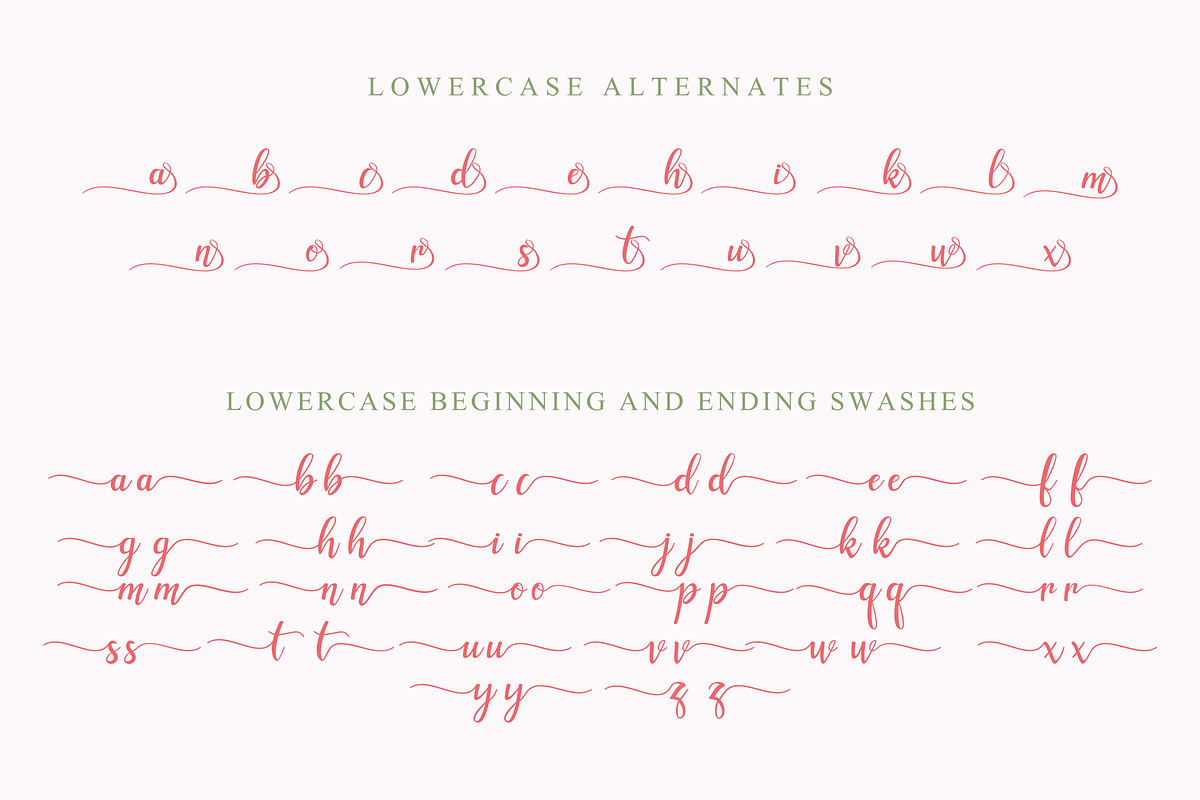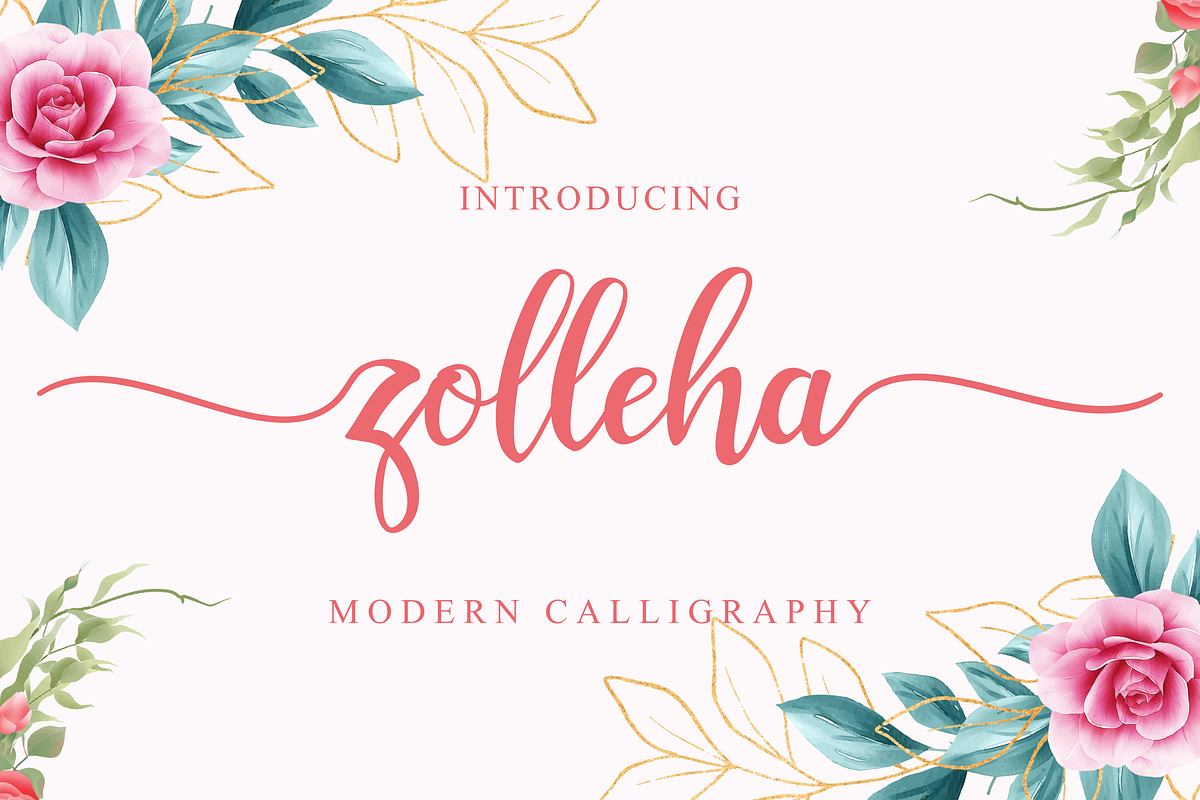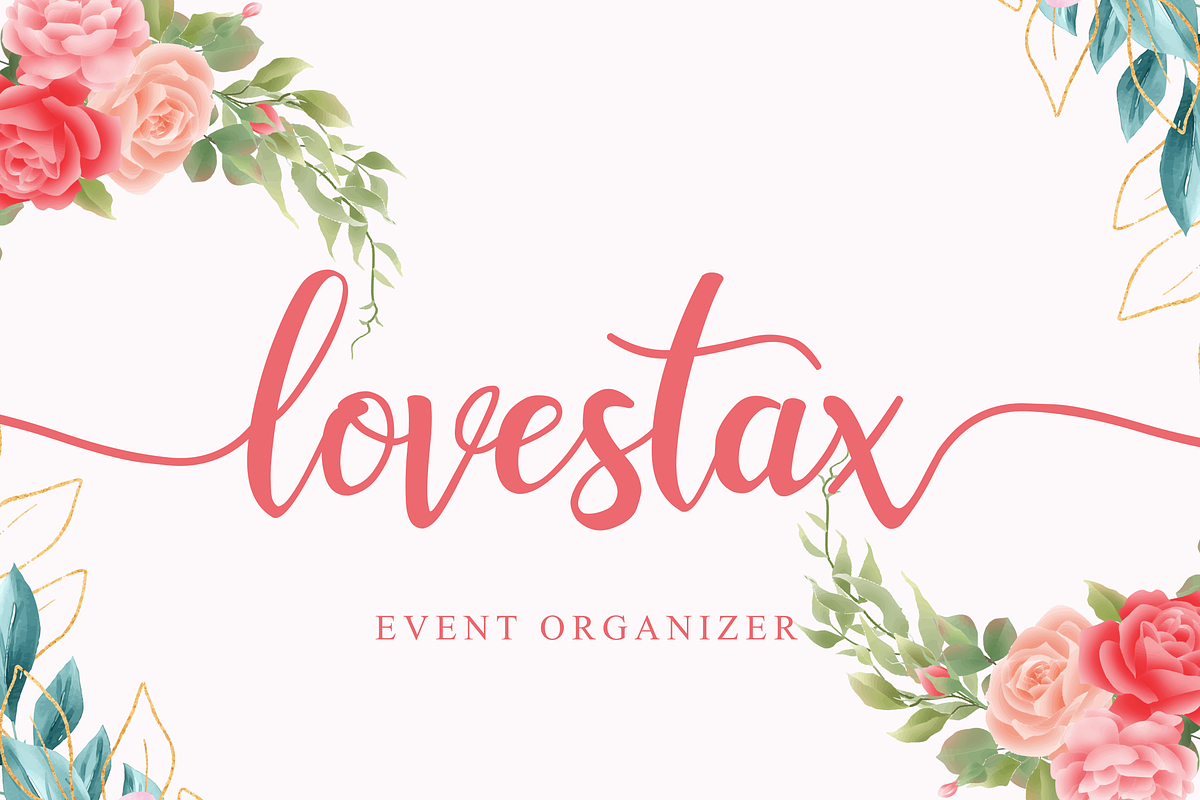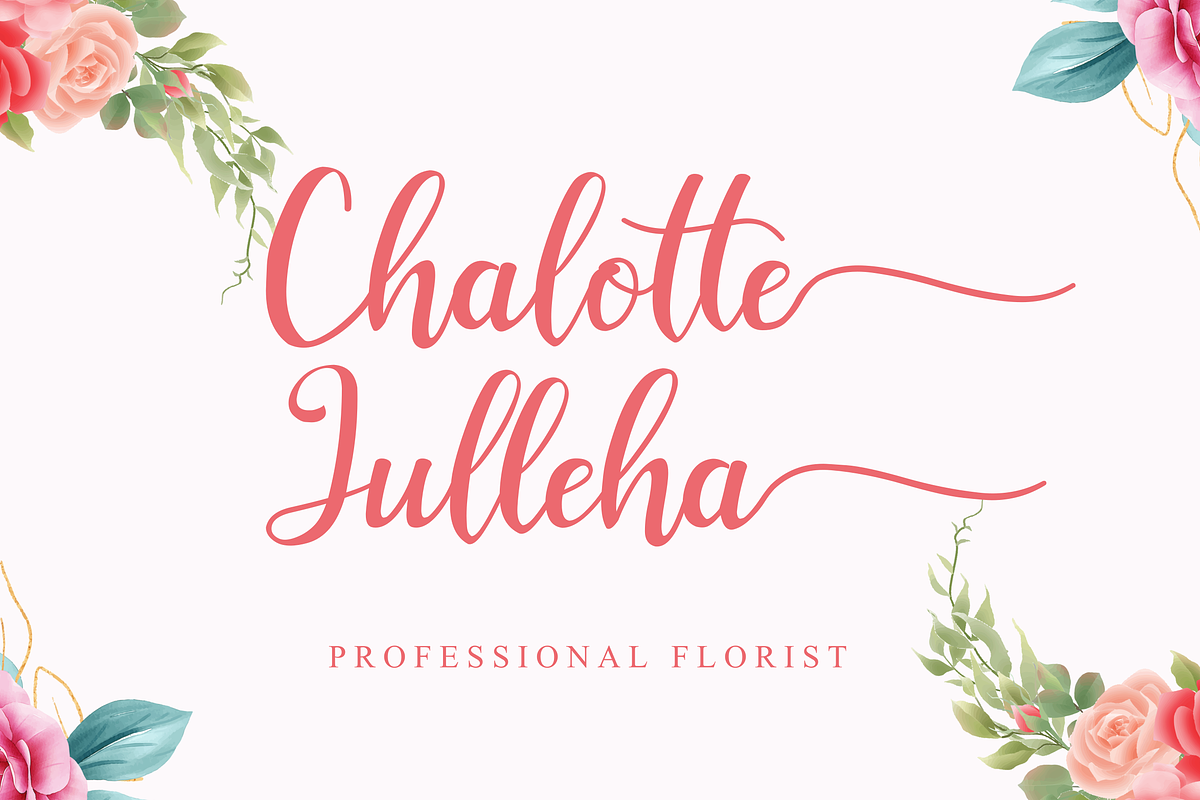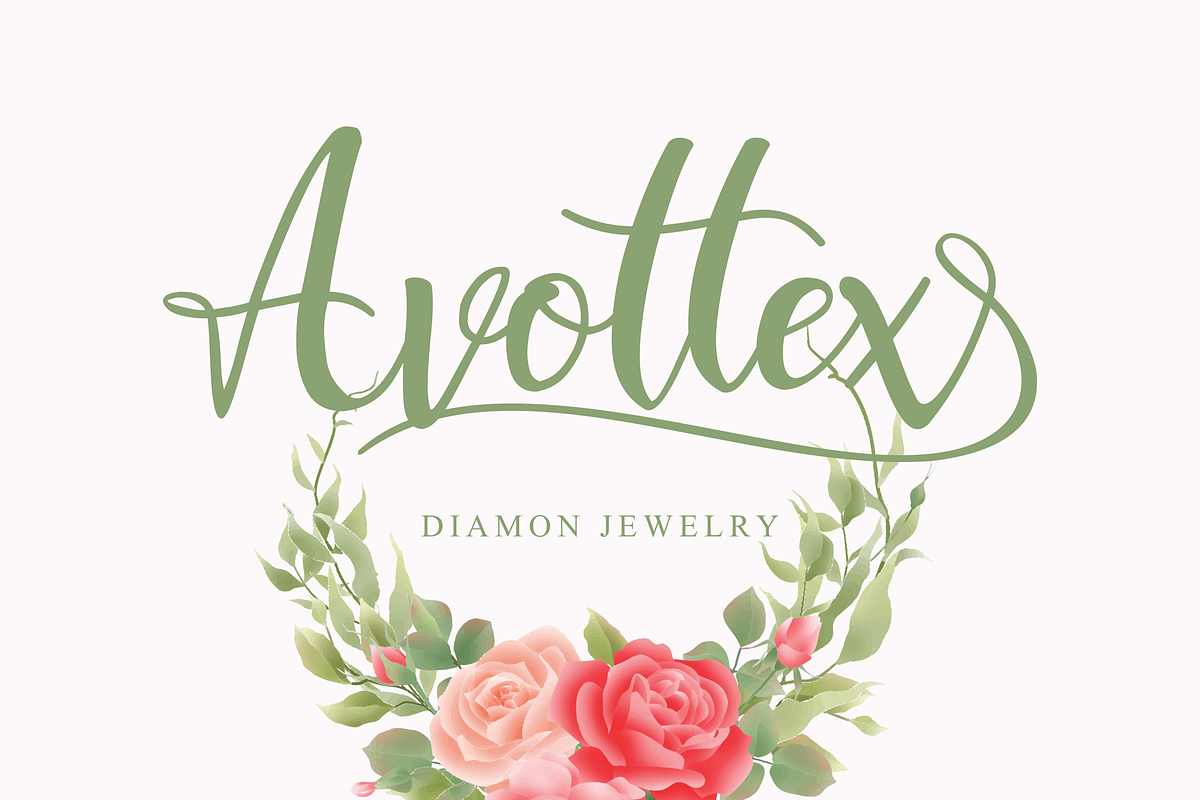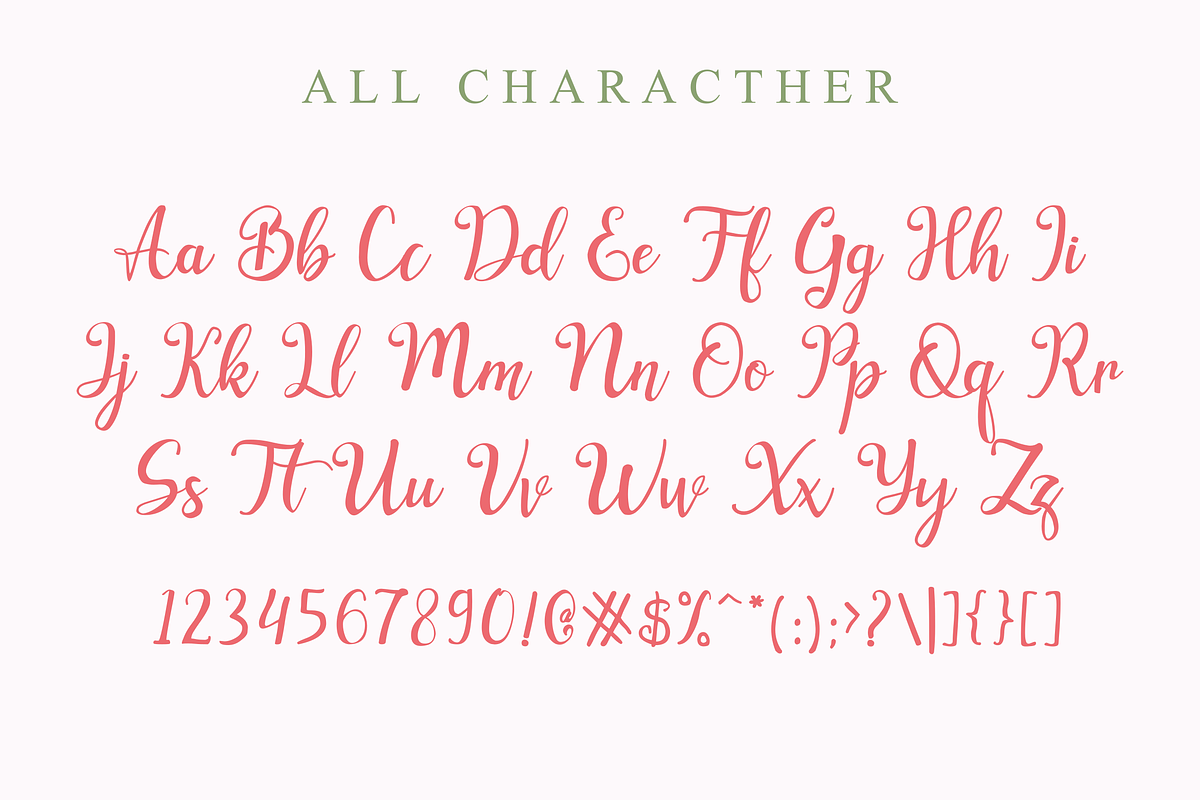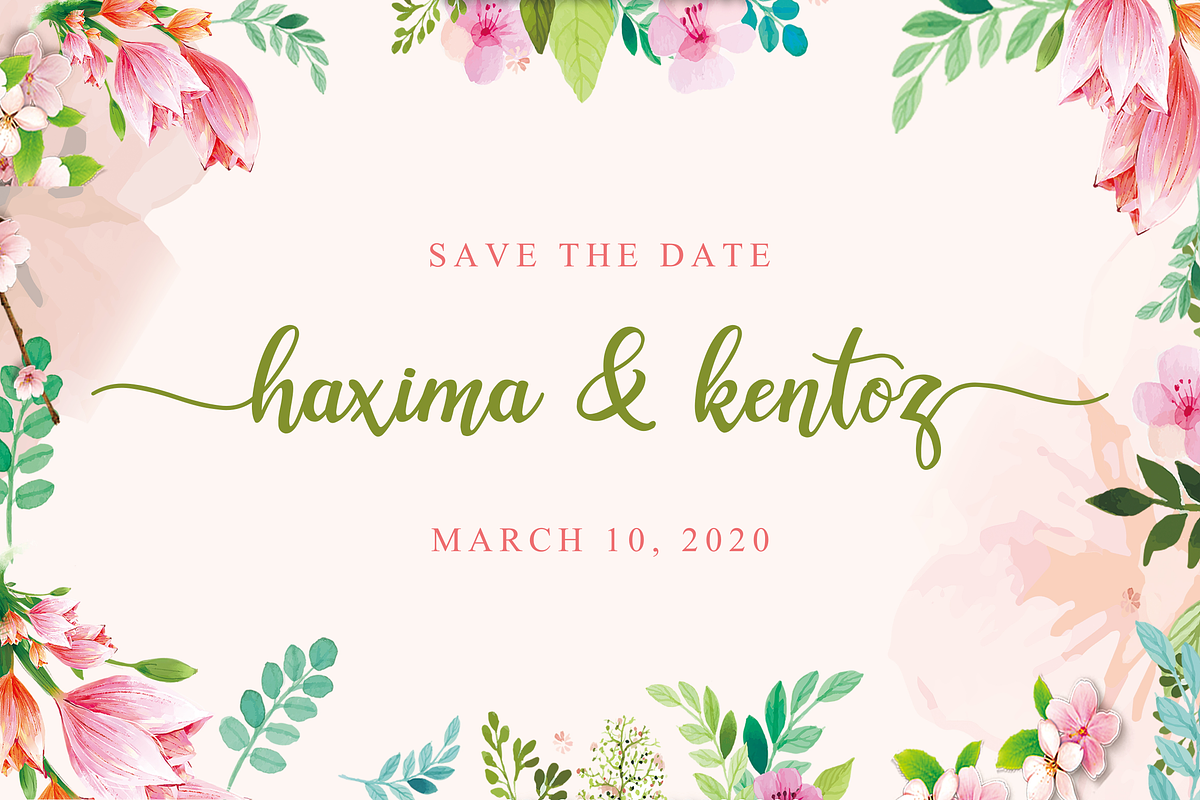
Zolleha // Script Font
Zolleha feels equally charming and elegant. This stunning script font is a stylish homage to classic calligraphy. It features a varying baseline, smooth lines, gorgeous glyphs and stunning alternates. It will elevate a wide range of design projects to the highest level, be it branding, headings, wedding designs, invitations, signatures, logos, labels, and much more!
- It features a varying baseline, smooth lines, gorgeous glyphs and stunning alternates.